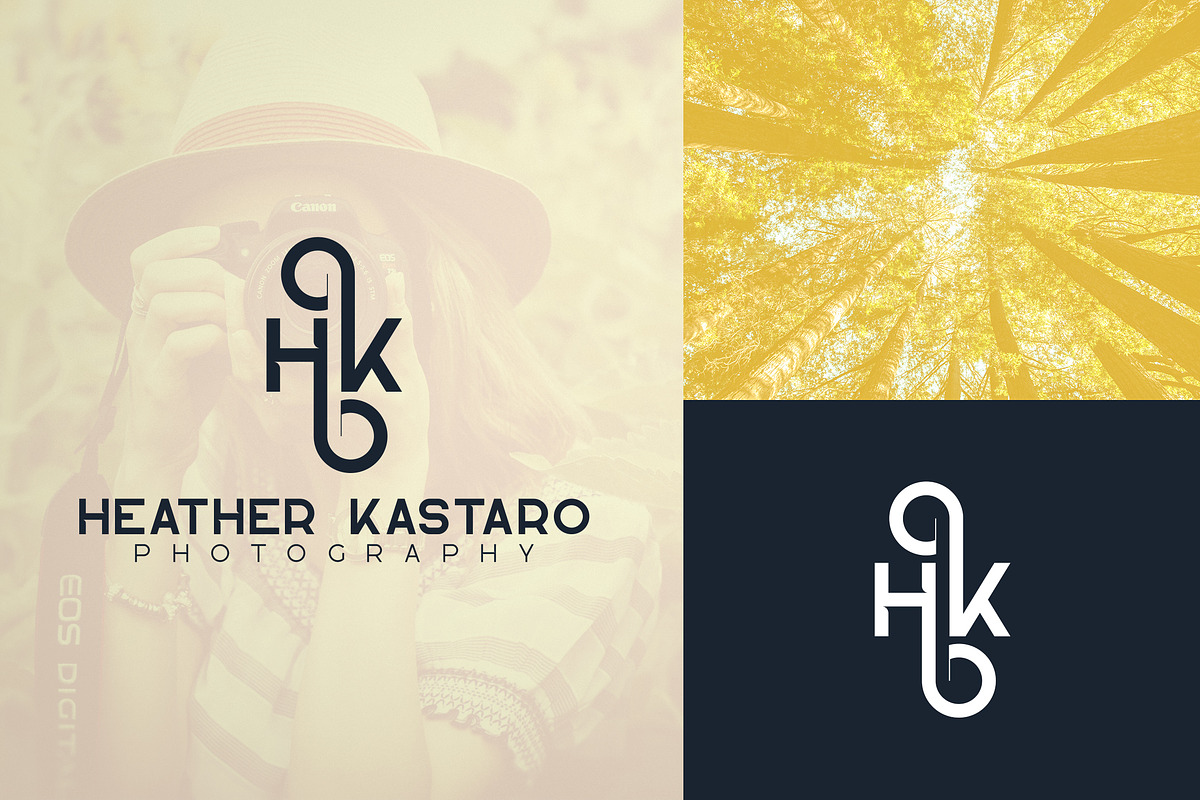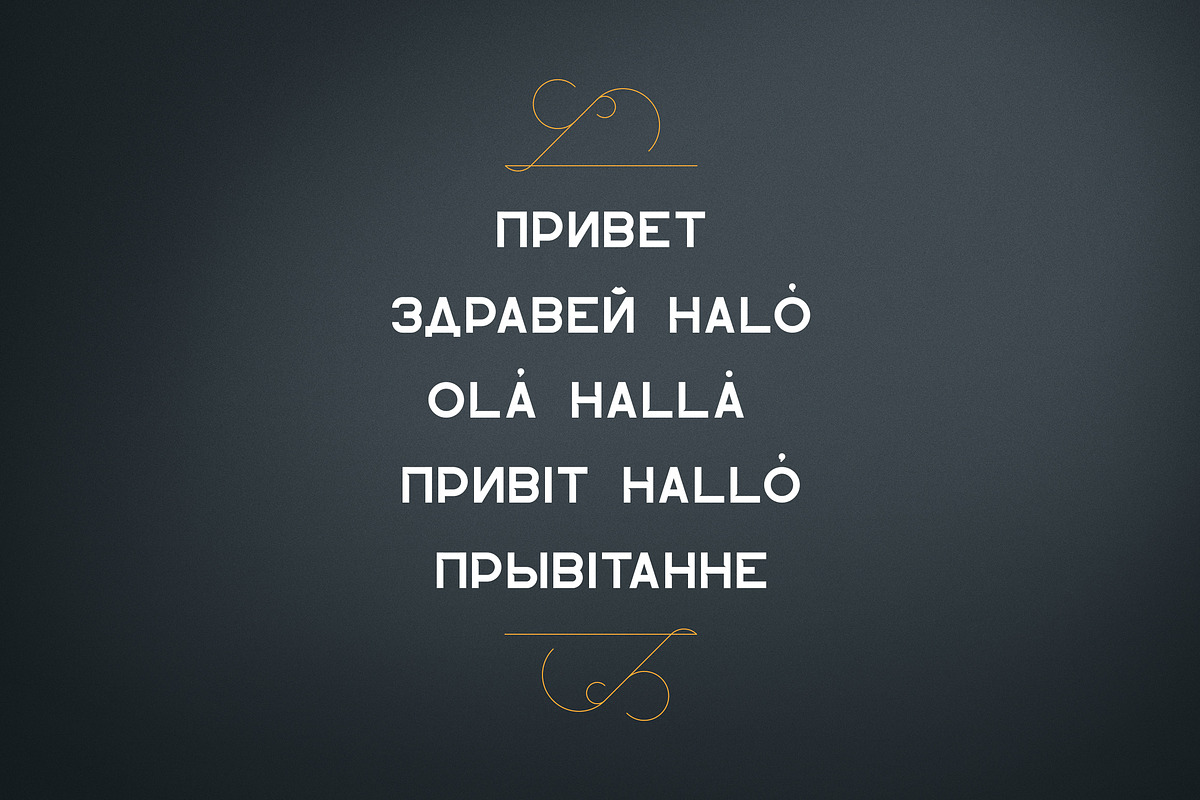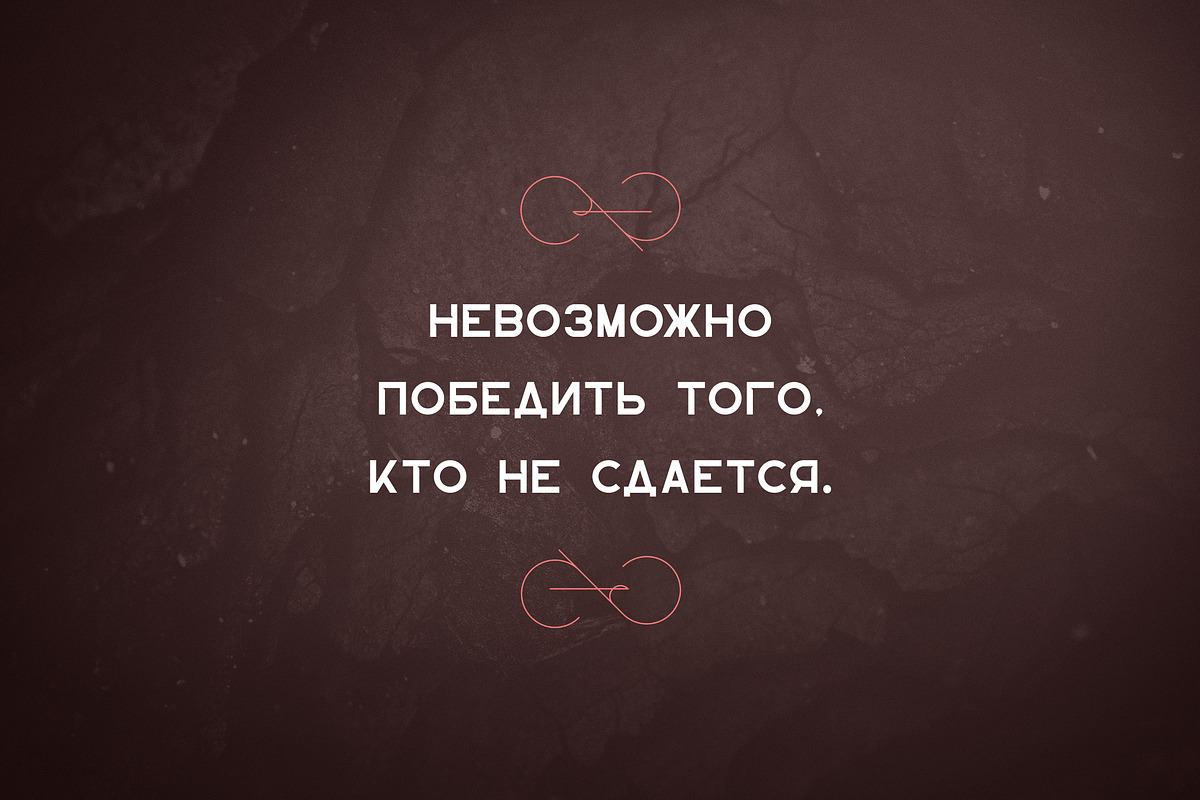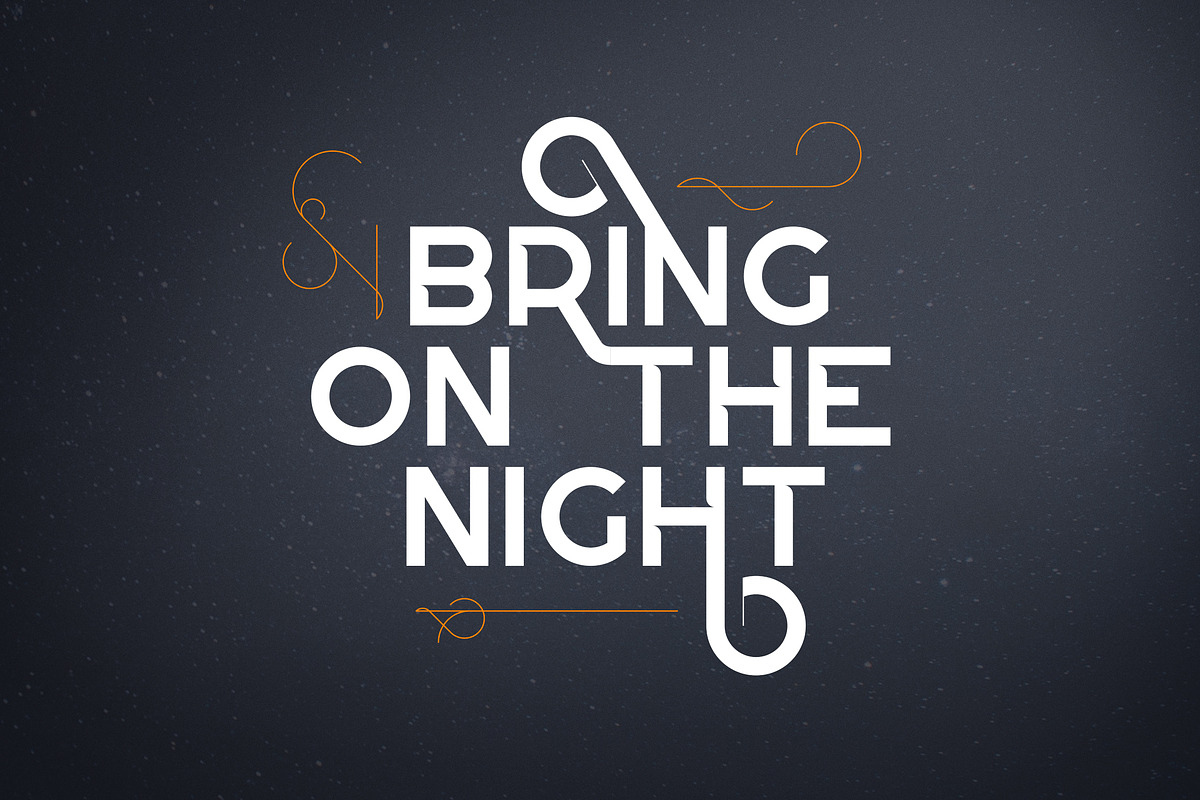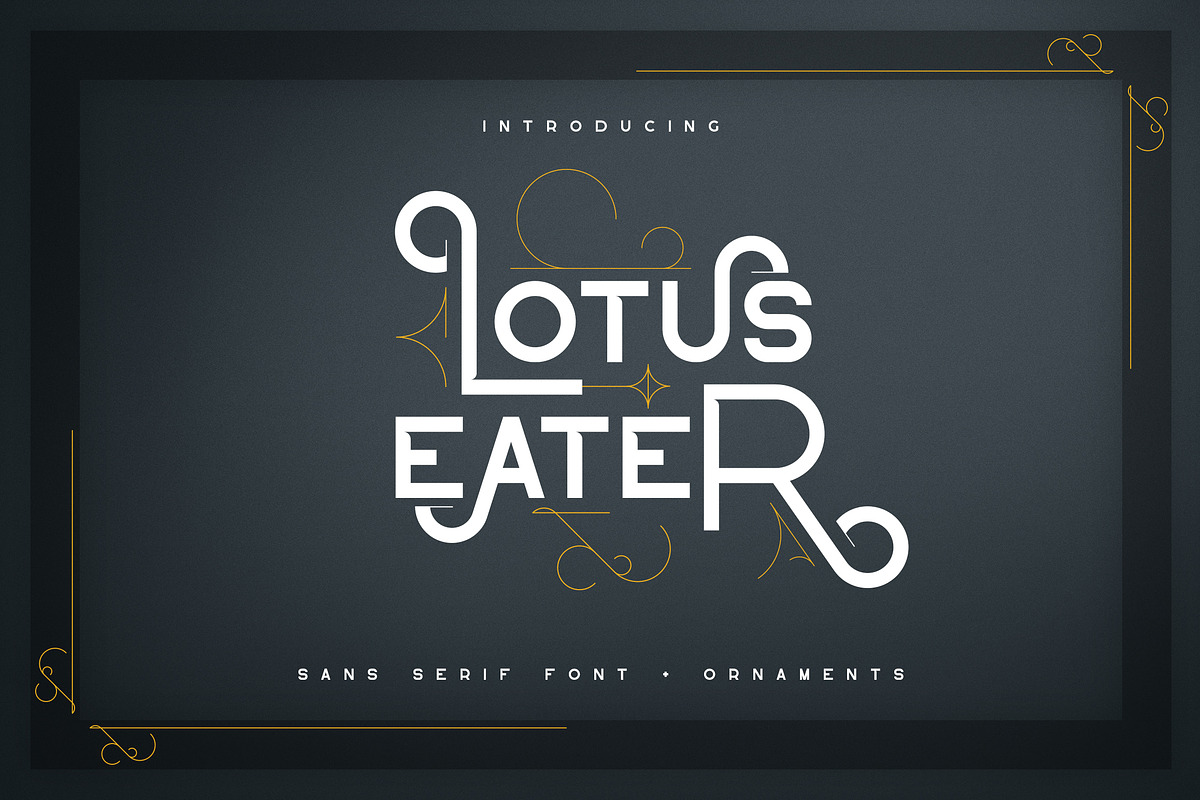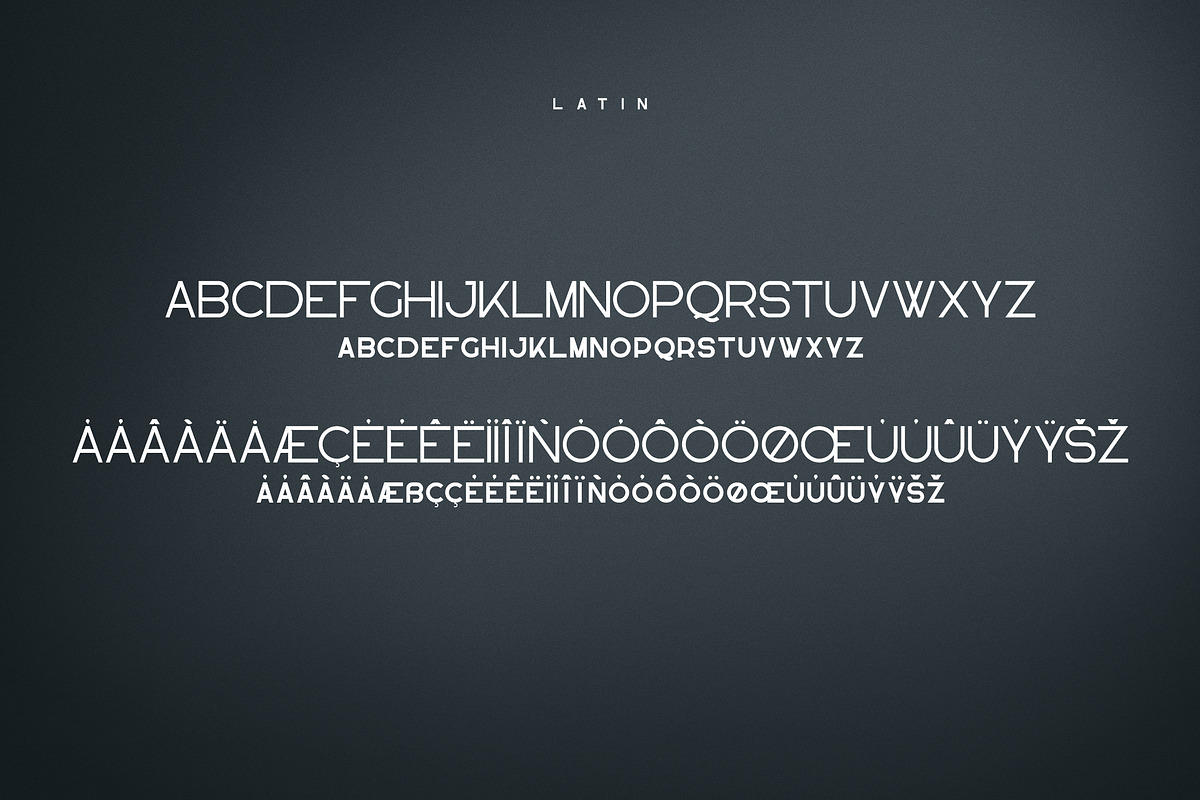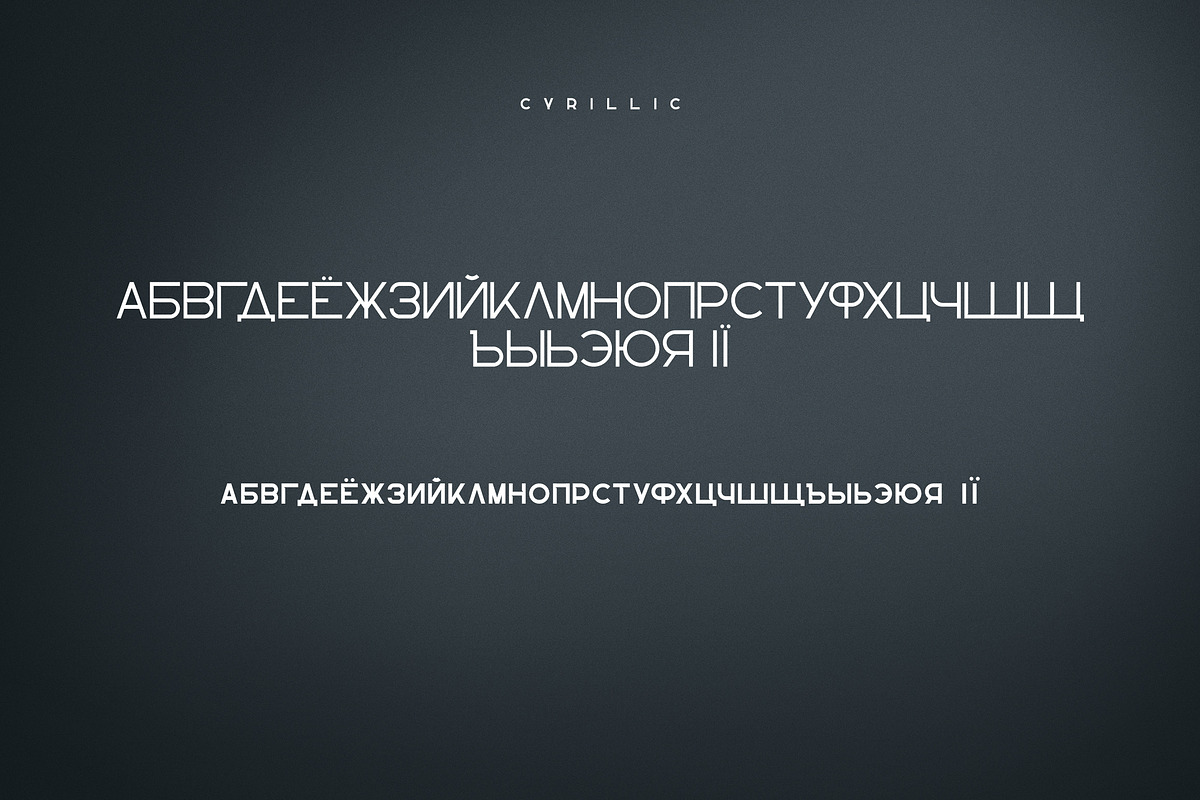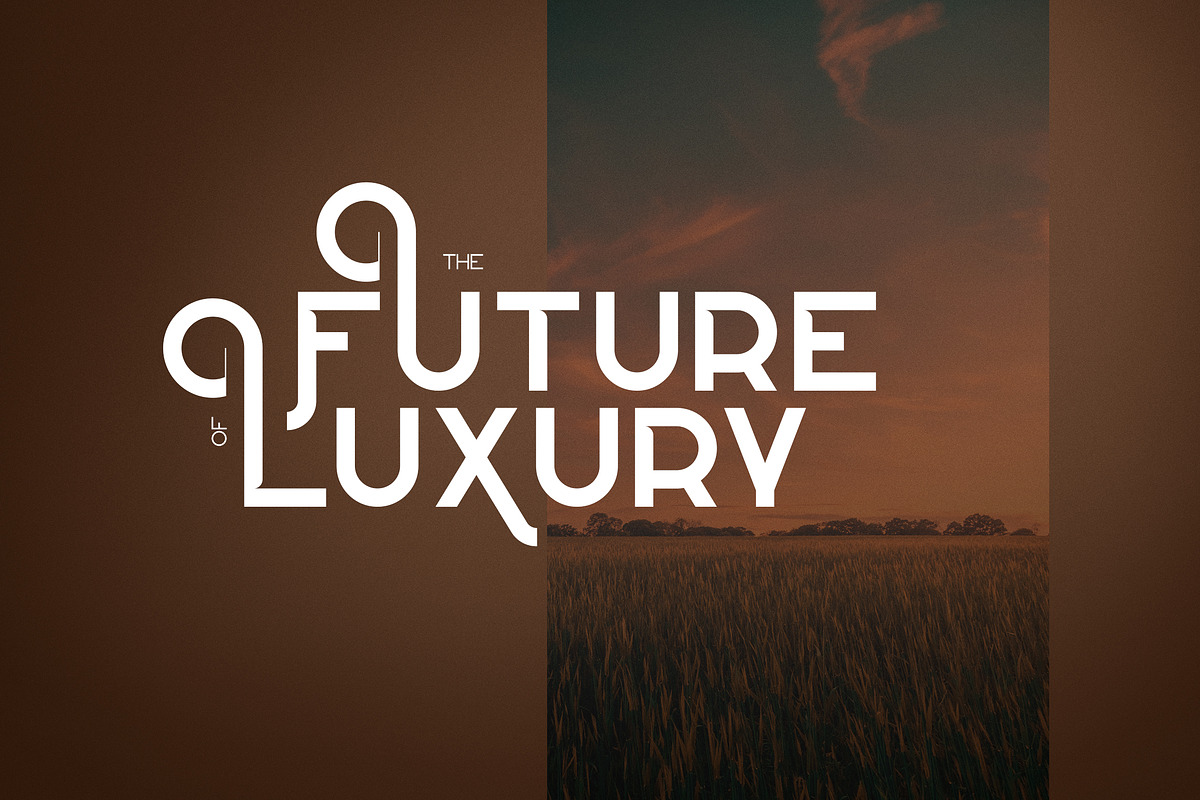
Lotus Eater - sans serif font
Introducing Lotus Eater - sans serif font with latin and cyrillic support
Lotus Eater is bold, clean font with latin and Cyrillic support, , loaded with alternate glyphs. It's a very versatile font that works great in large and small sizes.
Lotus Eater is perfect for branding projects, home-ware designs, product packaging, magazine headers - or simply as a stylish text overlay to any background image.
Uppercase,lowercase, numeral,punctuation & Symbol
Cyrillic support - Russian, Ukrainian, Bulgarian and more
Lotus Eater - sans serif font by VP Fonts fits naturally into Branding, posters, packaging, typography.